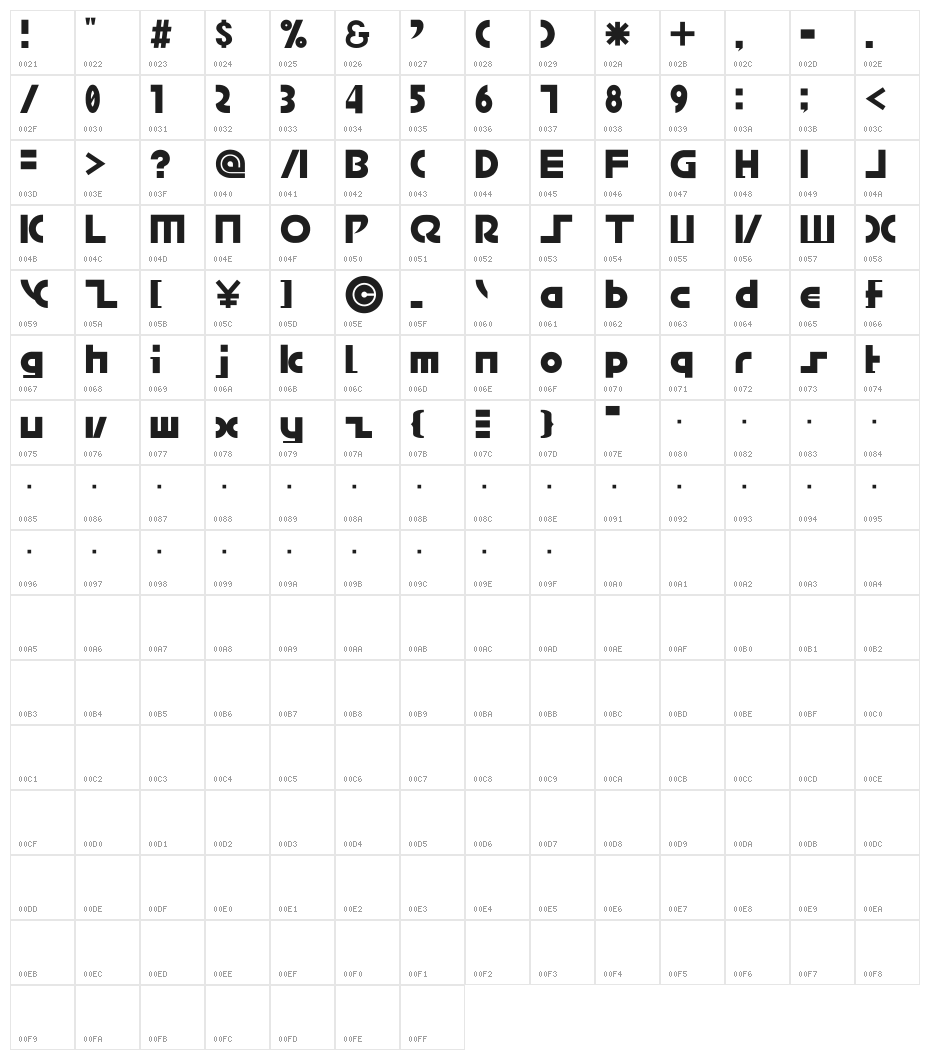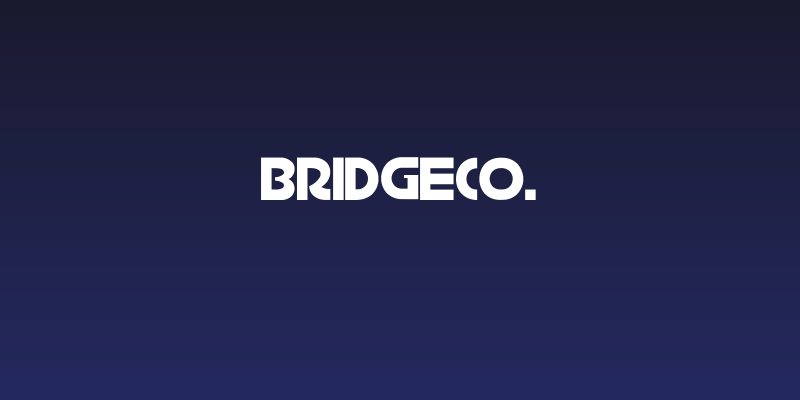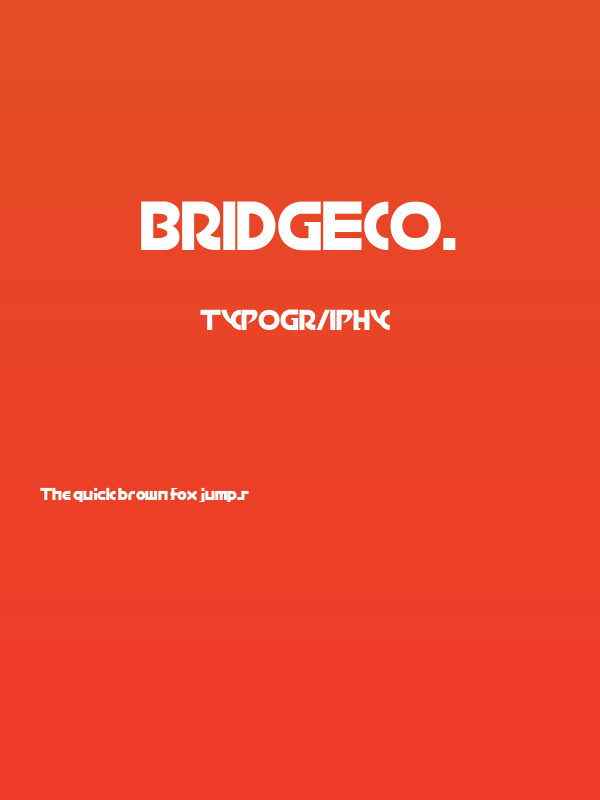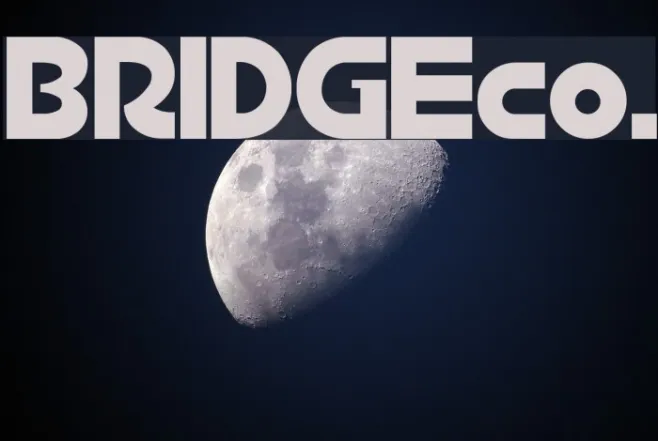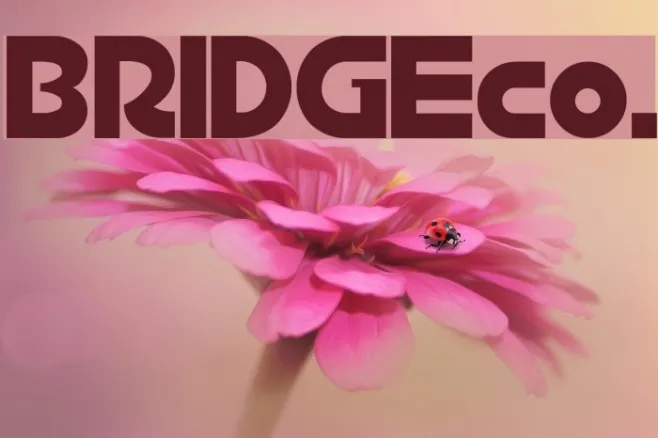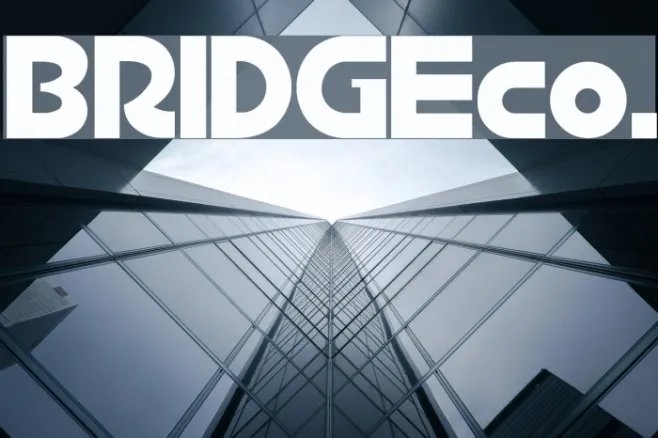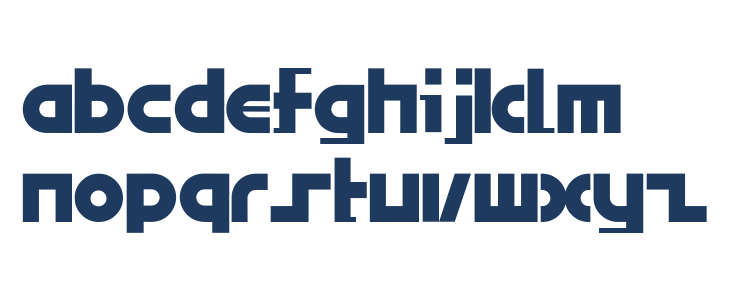
BRIDGEco. Font
BRIDGEco. Description
This font features a bold and geometric design with a distinct modern flair. The characters are constructed with sharp angles and clean lines, giving it a futuristic and industrial feel. The uppercase letters are particularly striking, with a unique use of negative space that adds to the font's visual interest. The lowercase letters maintain the boldness but offer a slightly softer edge, making them versatile for various design applications. The numerals and special characters are consistent with the overall style, ensuring a cohesive look across all text elements. This font's strong presence makes it ideal for attention-grabbing headlines and impactful branding.
BRIDGECO UPPERCASE
BRIDGECO LOWERCASE
BRIDGECO OTHER CHARS
| Proposed Projects | Ideal for branding, posters, and futuristic design projects. |